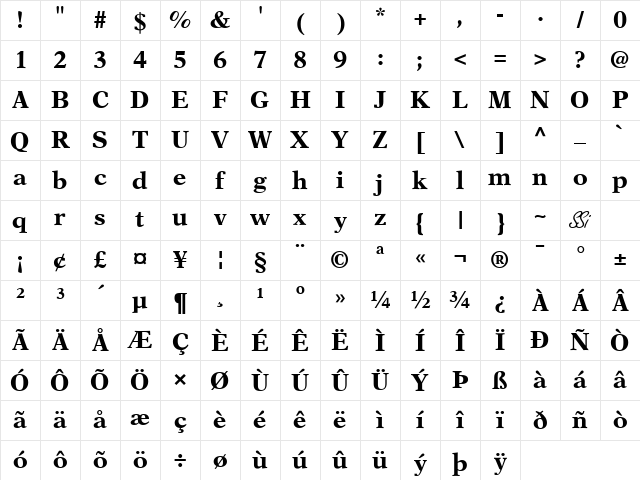
Orchid Black SSi Bold
Orchid Black SSi Family
Orchid Black SSi Bold
Design Context for Orchid Black SSi
Orchid Black SSi is a composed and adaptable typeface that performs quietly and consistently across a wide range of design contexts. Its bold stroke weight gives it real presence on the page.